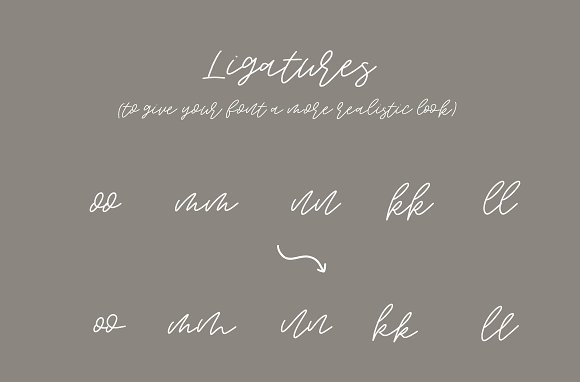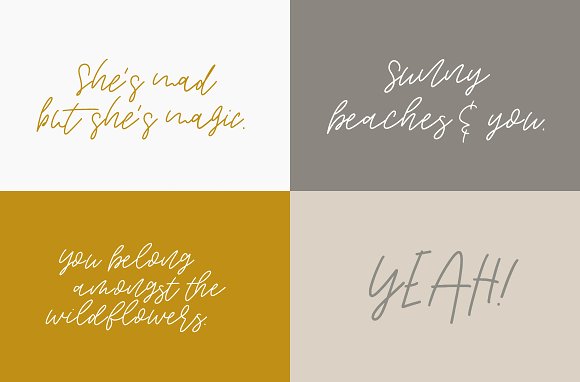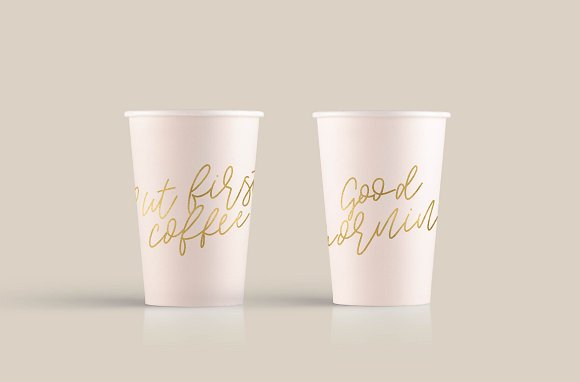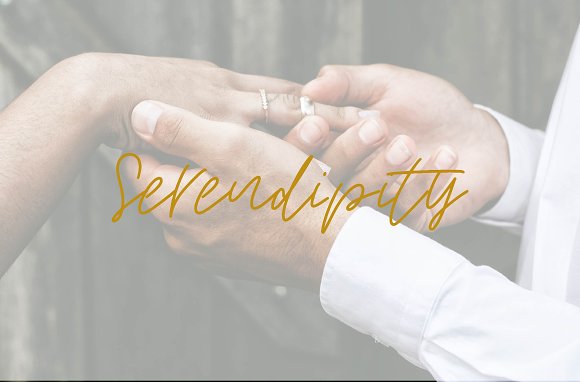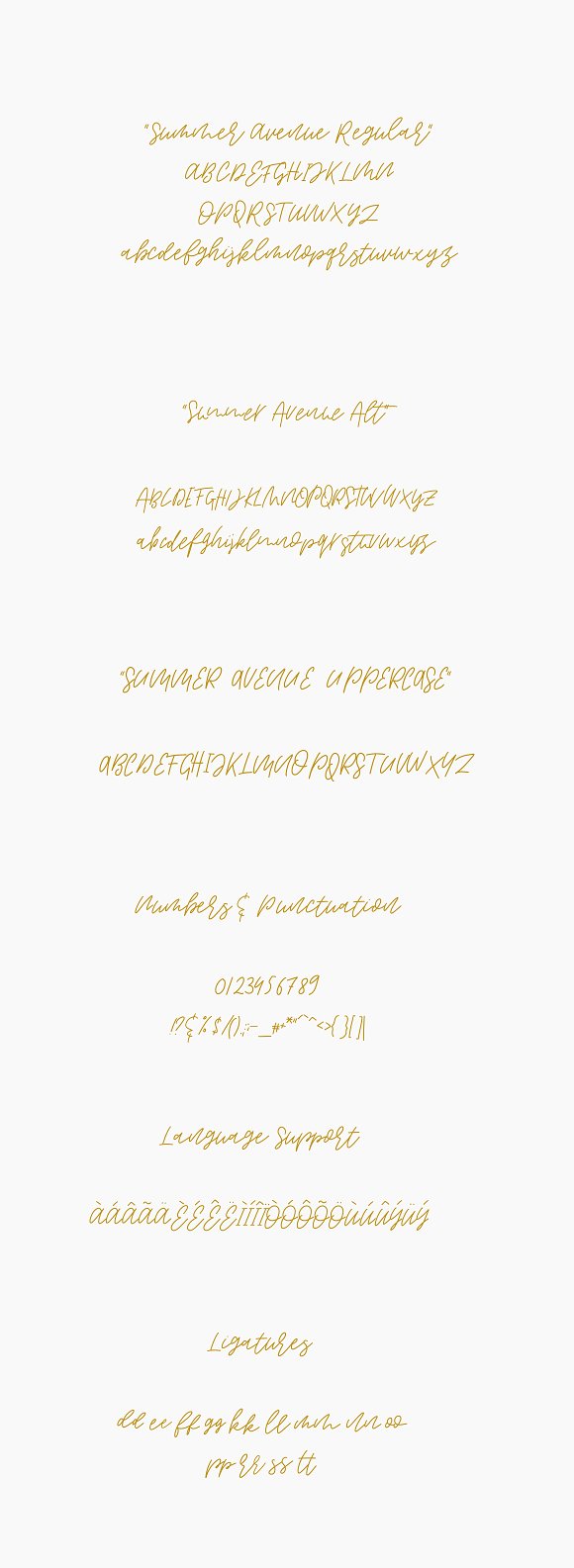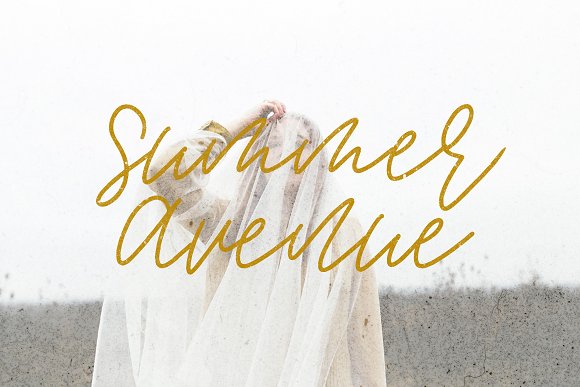
Summer Avenue Font Set
Summer Avenue is a beautiful handwritten typeface that comes in three different versions (“Regular”, “Alternate” and “Uppercase”). Its handwritten look makes it perfect for logos, wedding invitation cards, inspirational posters and other graphics.